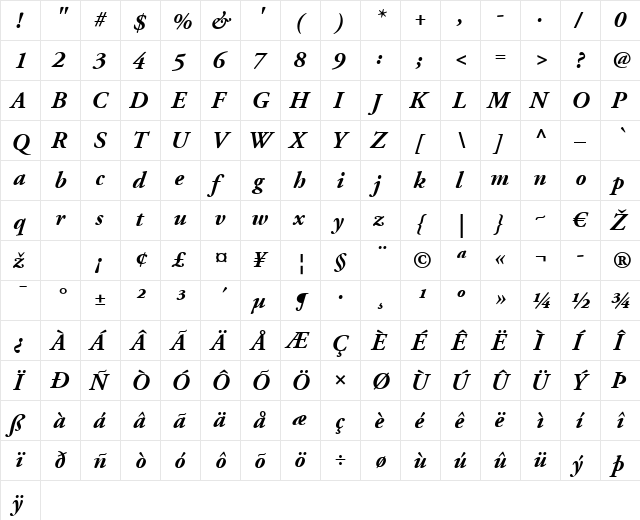
AGaramond LT Bold Italic Font Preview
AGaramond LT Bold Italic
Design Context for AGaramond LT Bold Typeface
AGaramond LT Bold takes a measured approach to typography — its balanced proportions and neutral character make it a reliable workhorse for both digital and print work. Its italic angle brings a sense of urgency and motion to the letterforms. Its bold stroke weight gives it real presence on the page.
Pro Tip: Use AGaramond LT Bold for emphasis, pull quotes, and subheadings where its slanted energy can add rhythm to the layout.